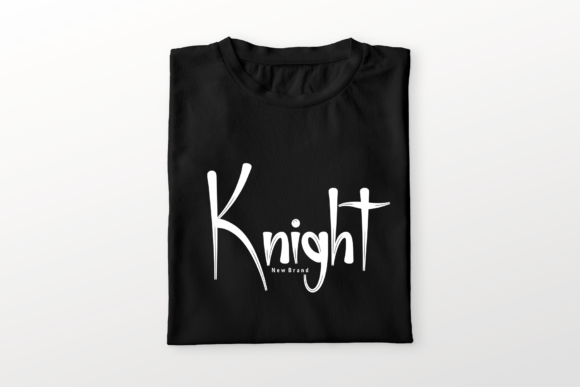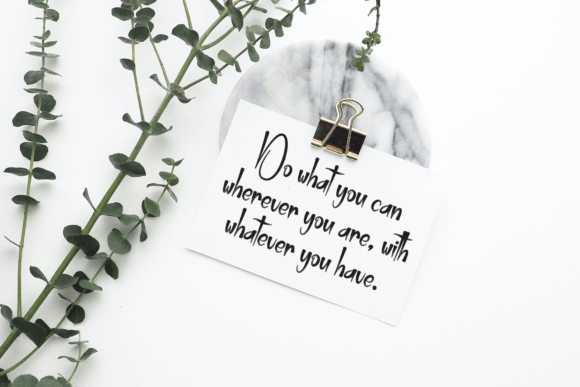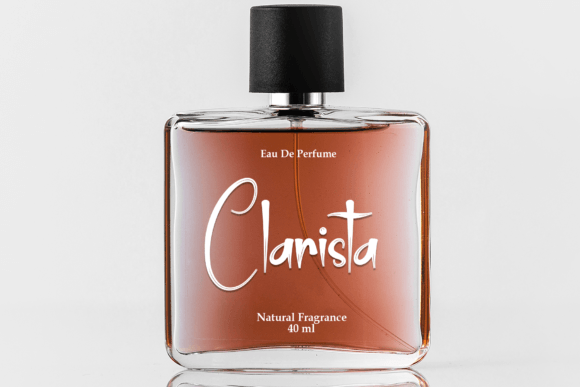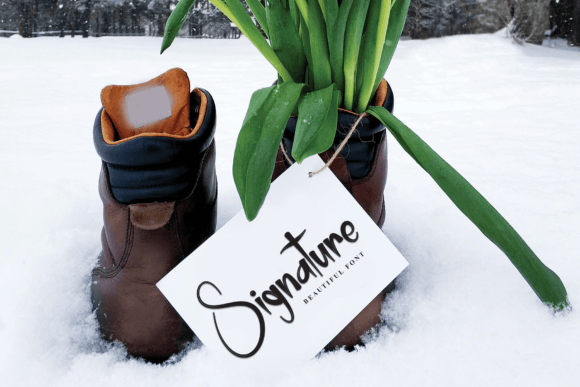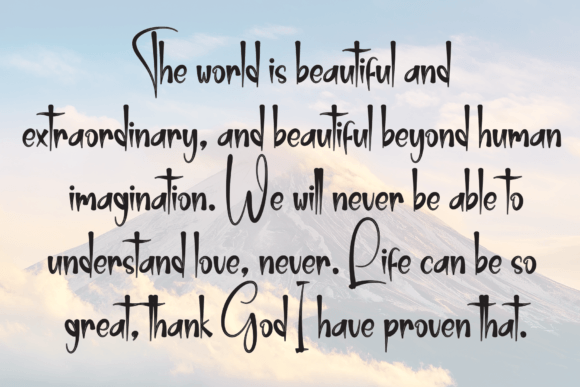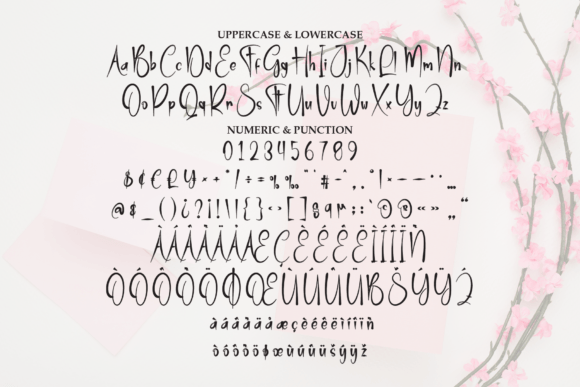
Introduction to Sakura Handmade Font
Sakura Handmade is a charming handwritten font imbued with a sense of freshness and casual elegance.
Its fluid strokes and organic lines evoke a laid-back vibe, making it perfect for various design projects Whether used for branding, invitations, or social media graphics, Sakura Handmade adds a touch of warmth and personality.
Key Features of Sakura Handmade Font